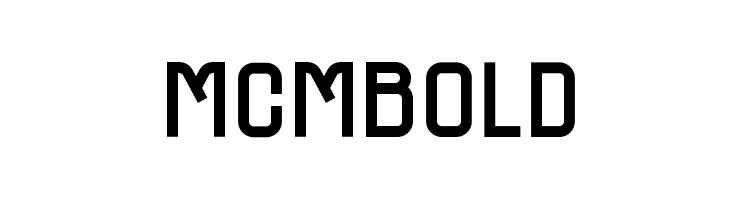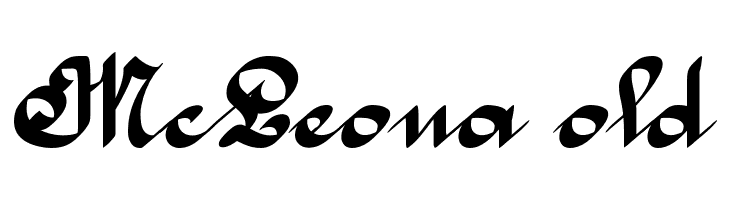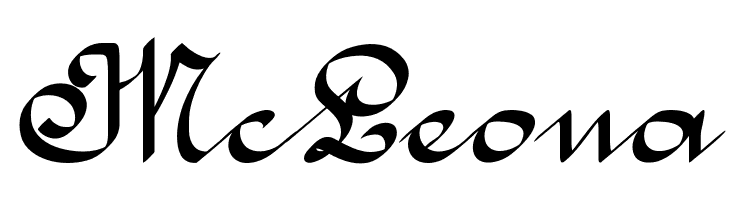
( Murat Yegul - www.formatltd.com )
A bold, calligraphic font with ornate uppercase and flowing lowercase letters.
( Murat Yegul - www.formatltd.com )
An elegant, flowing script font with intricate, connected letterforms.
( Jaime Rangel Castro )
A playful and whimsical font with bold, hand-drawn characters.
A modern, geometric font with a bold, slanted design.
( Rachel San )
A bold, geometric sans-serif font with a modern and structured design.
( Rachel San )
A modern, geometric font with uniform stroke widths and high legibility.
( Fonts by Kreative Korporation - www.kreativekorp.com )
A pixelated, retro digital font with a blocky, grid-like design.
( Fonts by Kreative Korporation - www.kreativekorp.com )
A bold, pixelated font with a retro digital aesthetic.
( Murat Yegul - www.formatltd.com )
A playful, handwritten font with smooth curves and a casual style.